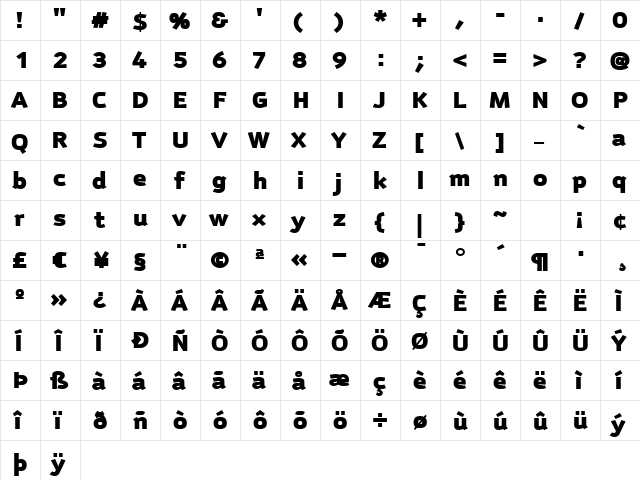
AnomolyBlack Regular
Design Context for AnomolyBlack Typeface
AnomolyBlack offers clean, dependable letterforms without strong stylistic allegiance, making it a practical choice for designers who need flexibility.
Pro Tip: Use AnomolyBlack in both headline and body roles to test its range before committing to a single application.